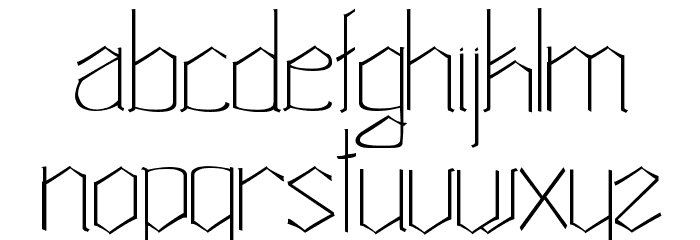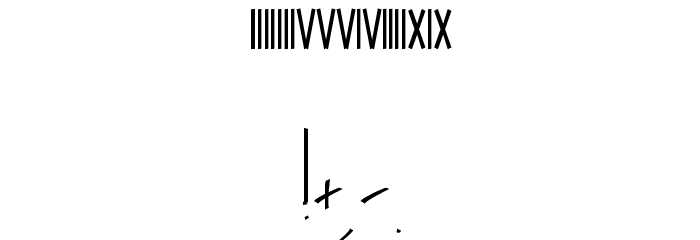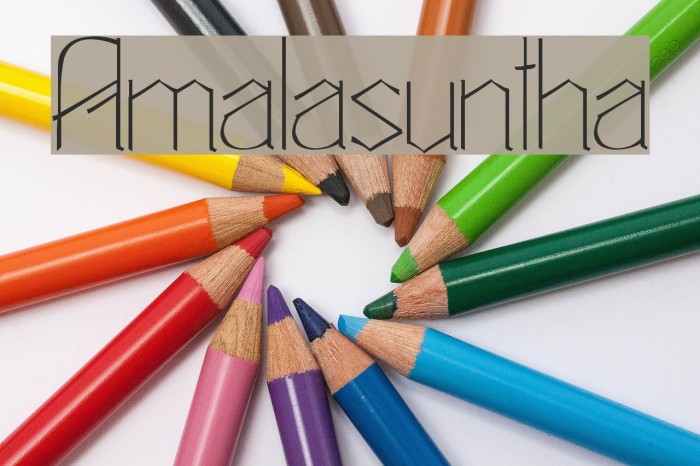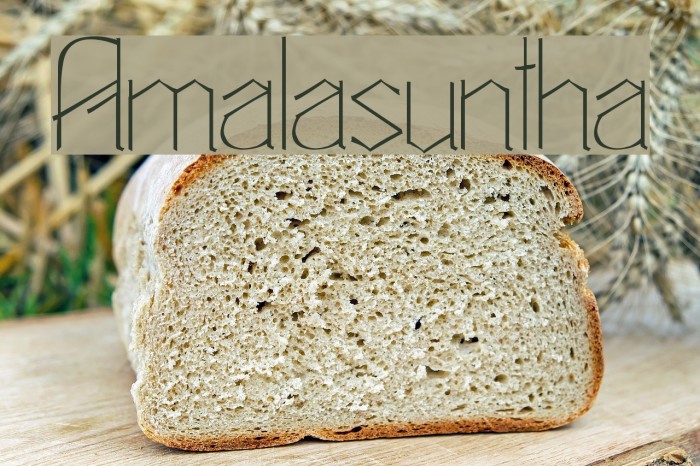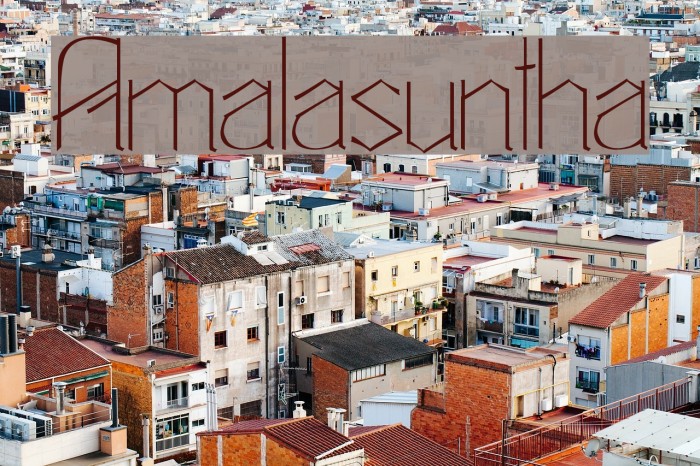
Amalasuntha Font
This font features a unique geometric and angular design, characterized by its sharp edges and linear forms. The uppercase letters exhibit a distinct architectural style, with elongated strokes and minimal curves, giving it a modern and futuristic appearance. The lowercase letters maintain the same angular aesthetic, providing a cohesive look across the typeface. The numerals are consistent with the overall design, featuring straight lines and sharp angles. Special characters are stylized to match the font's distinctive geometric theme, making it suitable for creative and artistic projects.
A geometric and angular font with a modern, architectural style.
- Proposed Projects: Ideal for futuristic branding, architectural designs, modern art projects, and innovative product packaging.